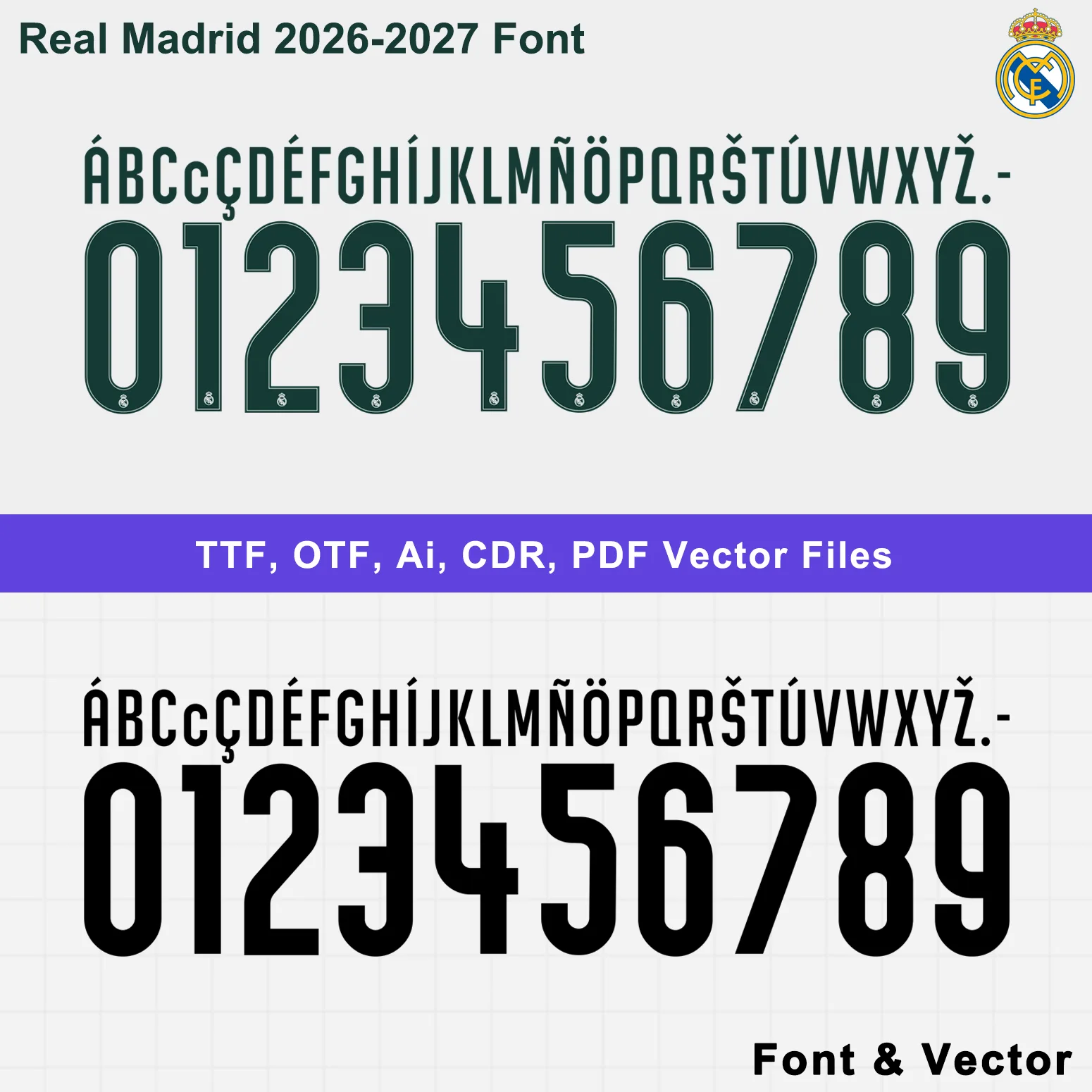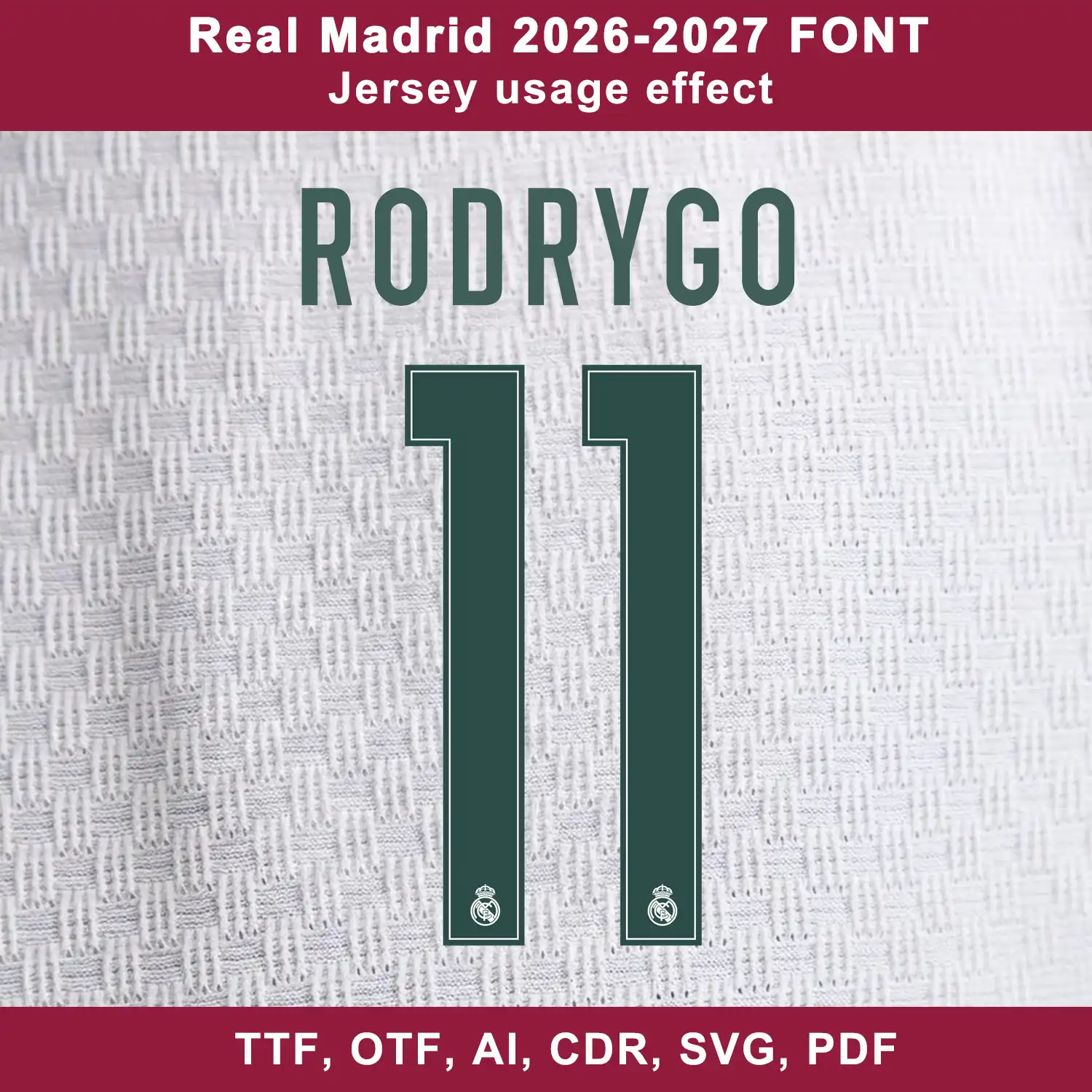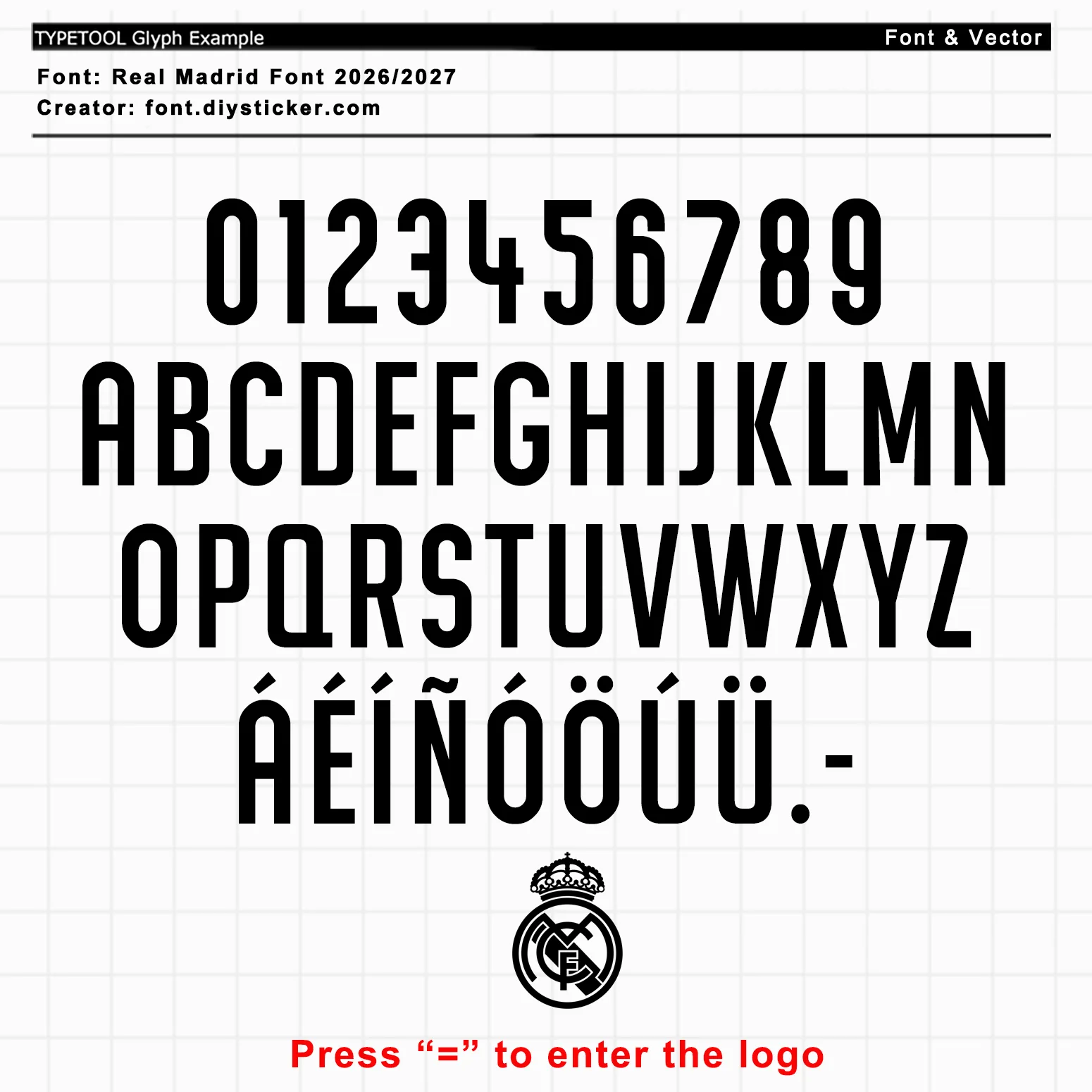
Real Madrid Font 2026/2027 Vector Overview
Recreate the historic look of the Santiago Bernabéu stars with our expertly crafted Real Madrid Font 2026/2027. Every single letter, number, and special character has been meticulously traced and optimized from the official Adidas kit templates to offer unrivaled precision. Whether you are a passionate kit collector looking to execute a flawless jersey restoration or a professional custom apparel workshop producing teamwear, this font package provides all the necessary graphical elements. For more inspiring football typography designs, check out our comprehensive custom football font collection.
The numbers in this Real Madrid Font 2026/2027 feature the distinct compressed, geometric architectural aesthetic selected for the 26-27 season. Crucially, the vector files contain the intricate club crest positioned perfectly inside the bottom of the numbers—saving you hours of painstaking design alignment. To ensure absolute compliance with global design standards, we also cross-reference official typography parameters detailed on the official Real Madrid Store.
Q: Does the Real Madrid Font 2026/2027 kits numbers contain the team crest?
A: Yes, the vector vector versions (AI, CDR, SVG, PDF) contain the embedded club crest placed accurately inside the base of each digit. The standard system typing font (TTF/OTF) contains the core numeral geometry without the crest due to standard font engine limits.